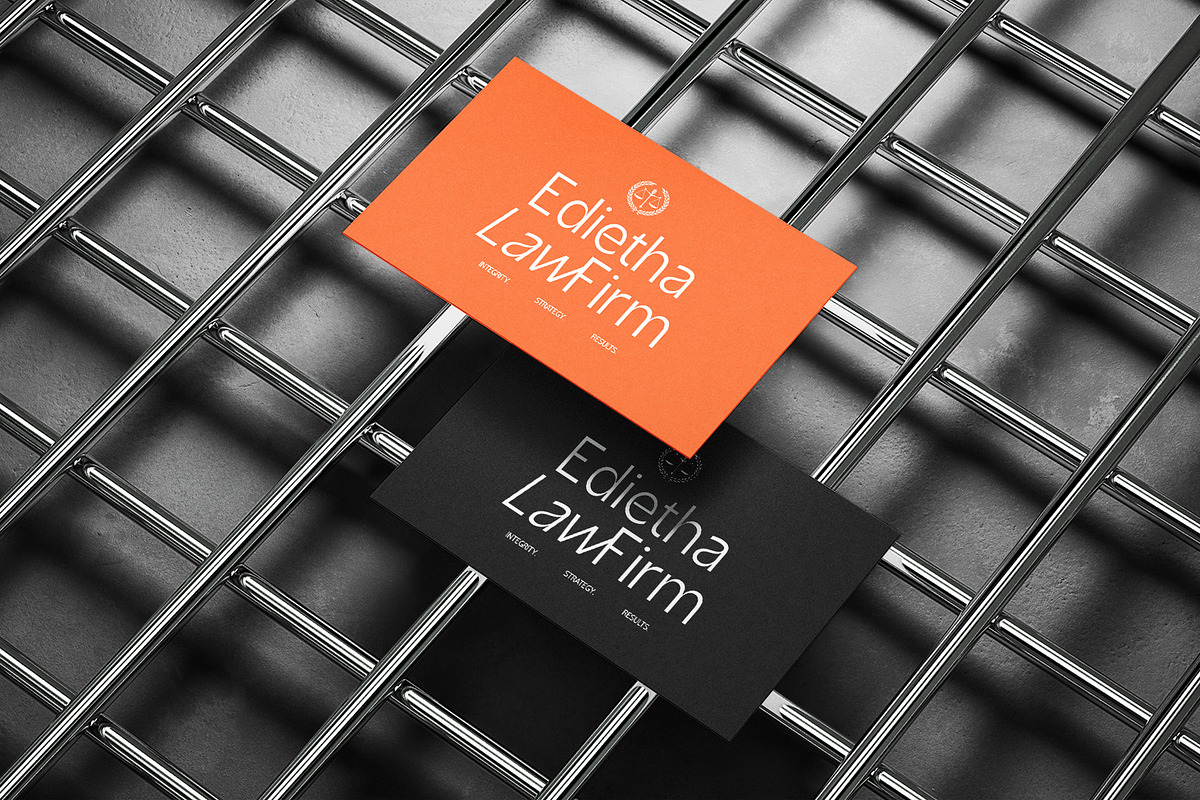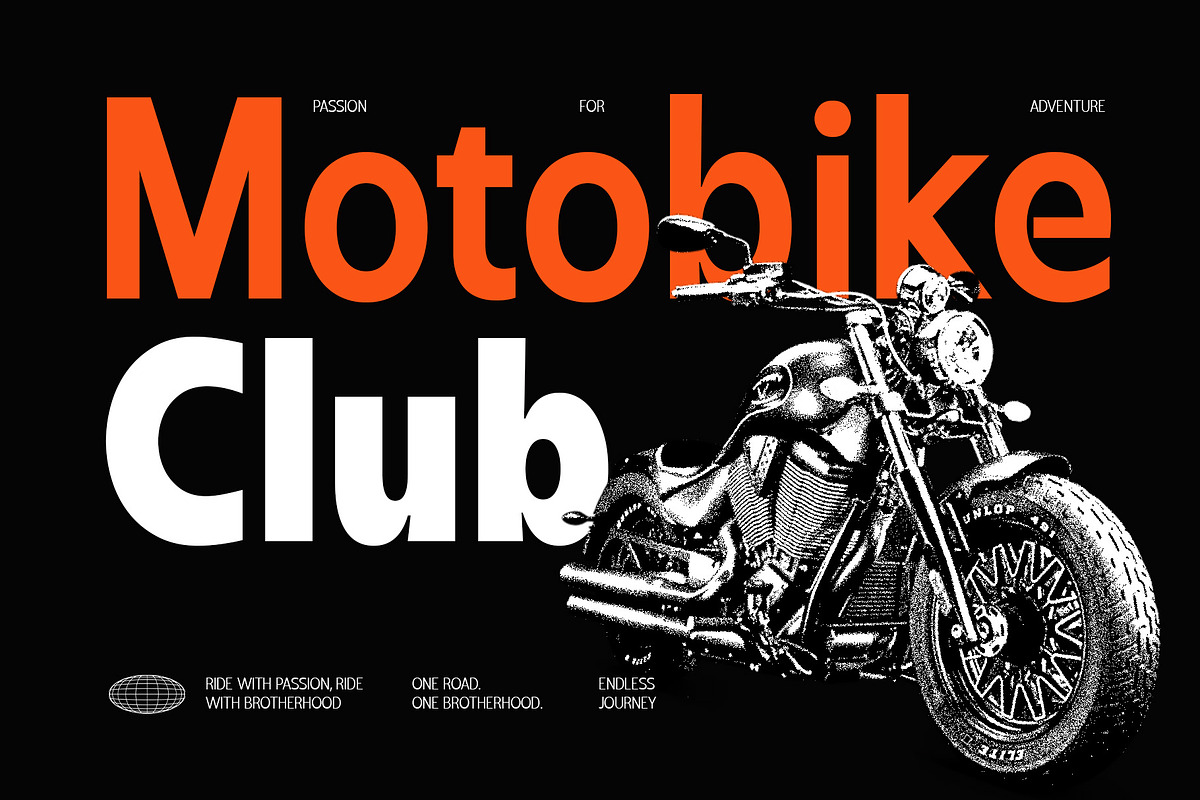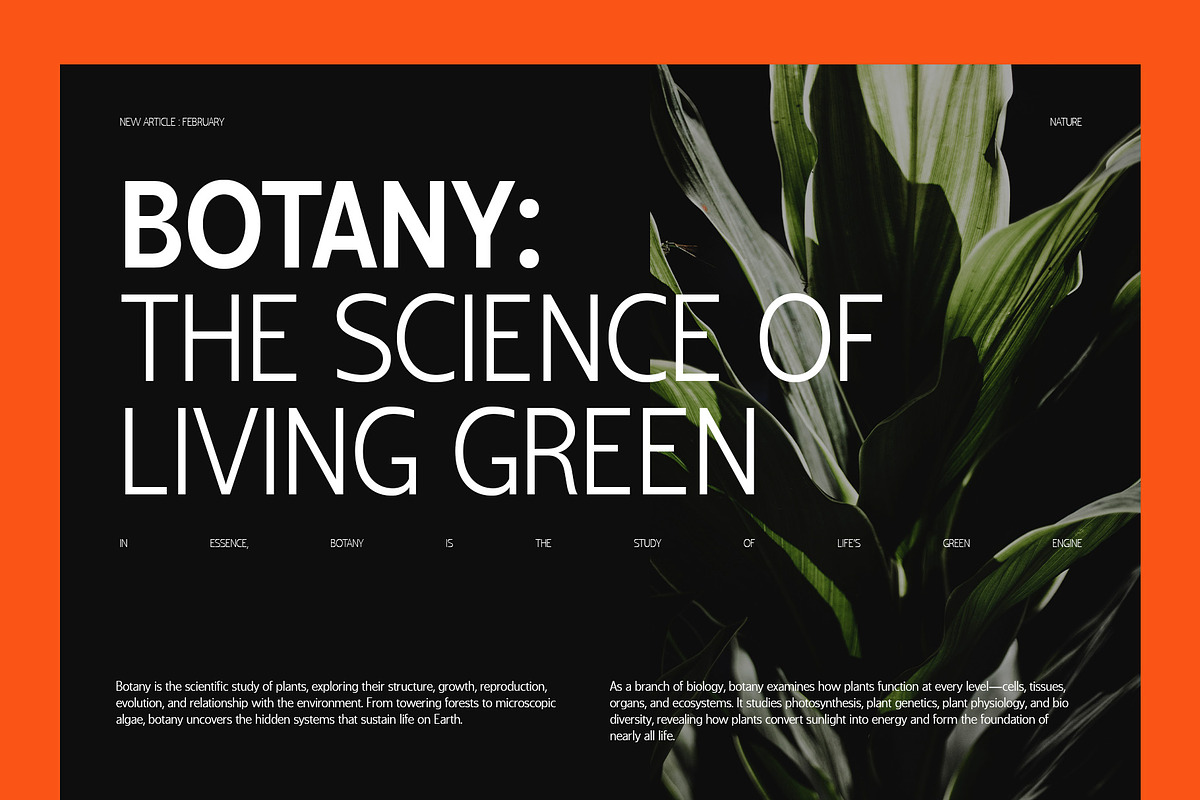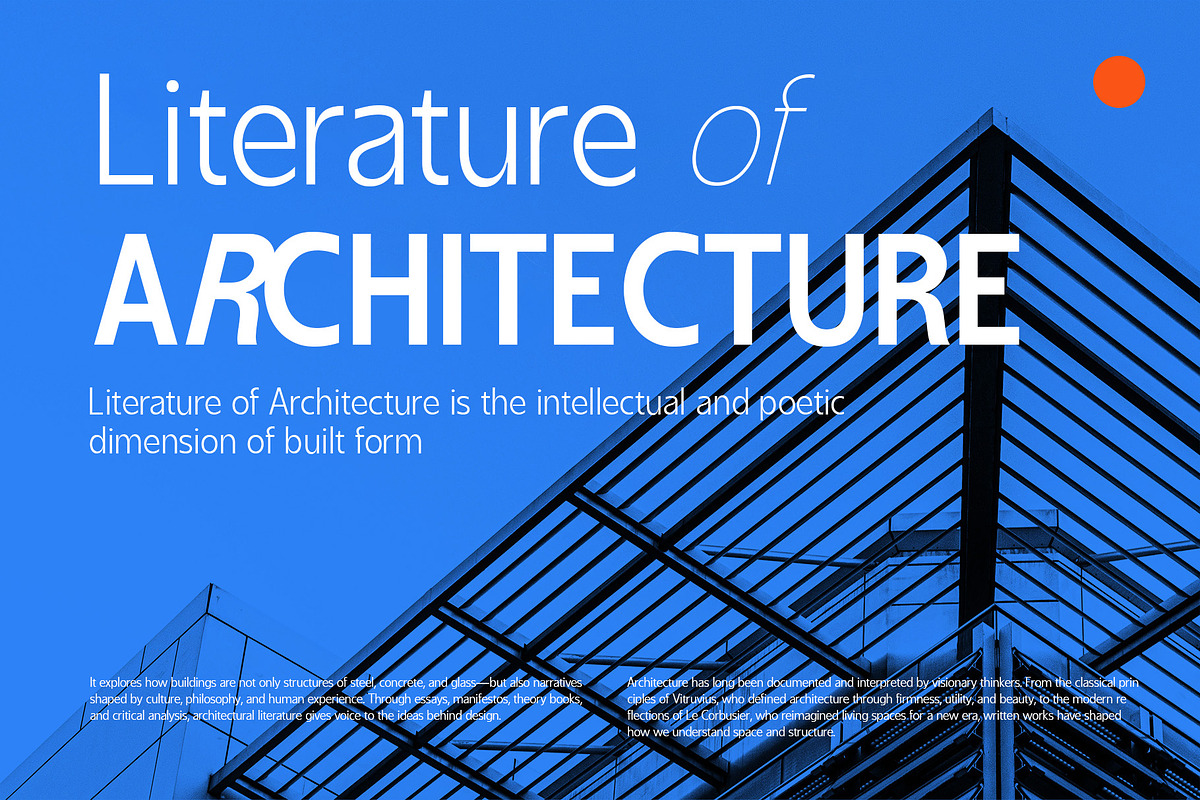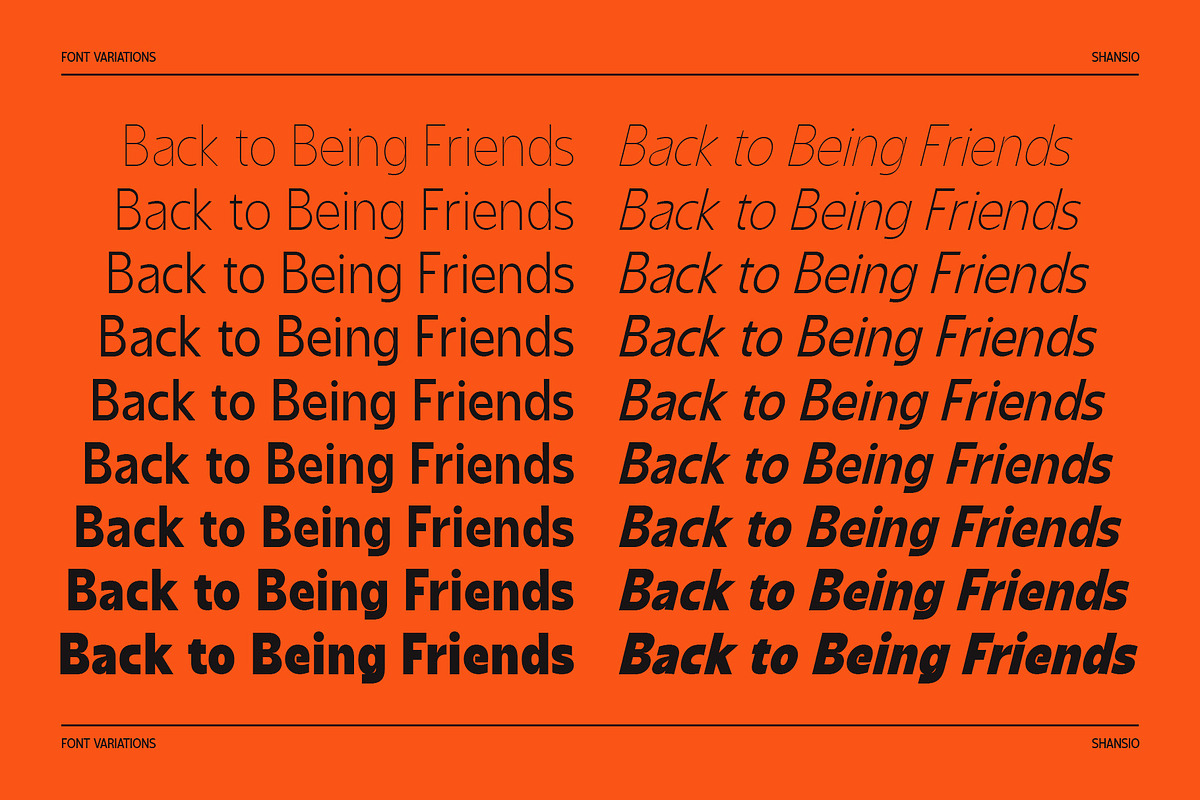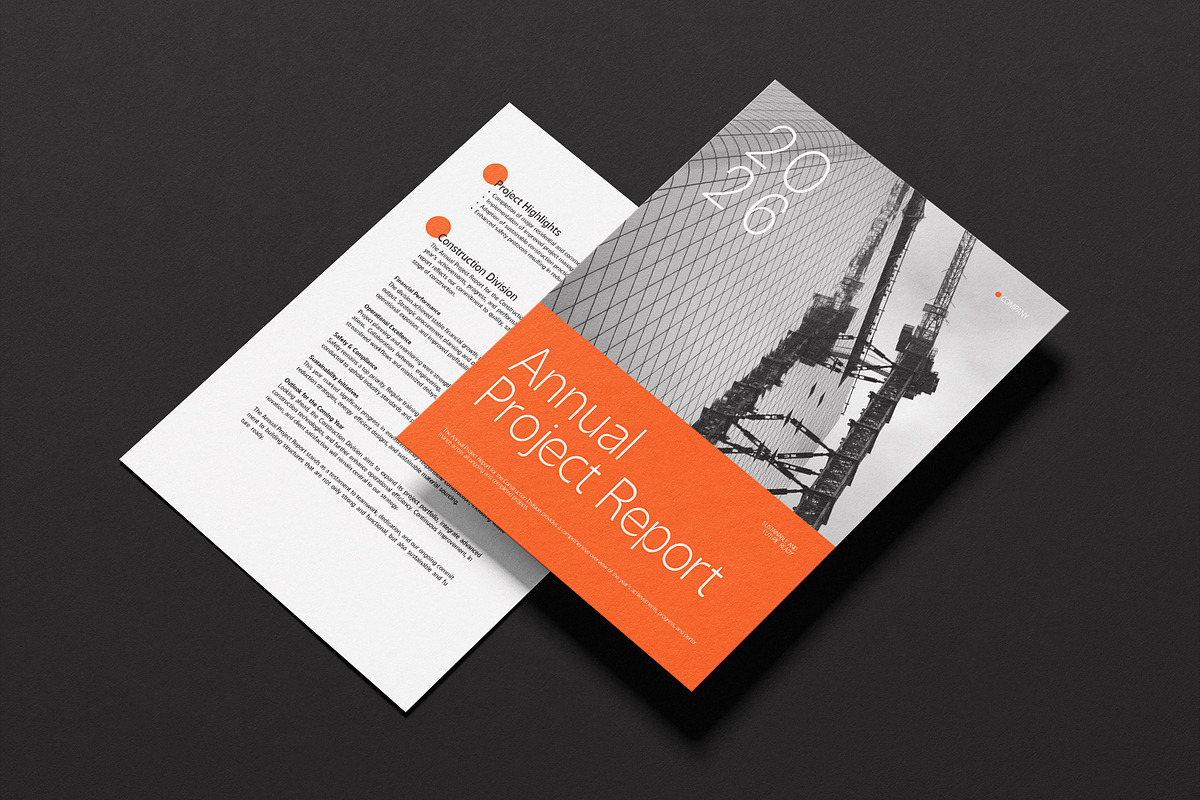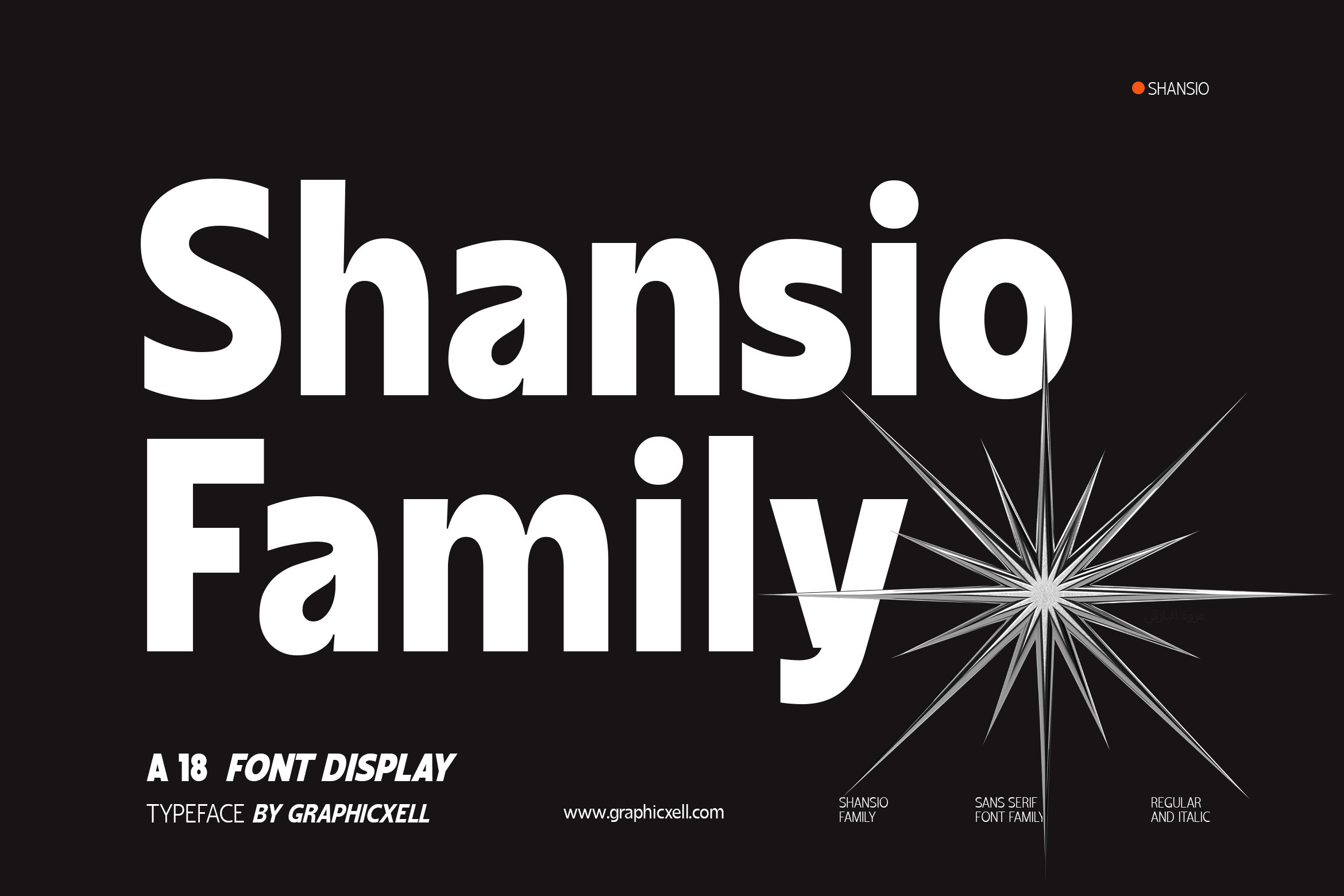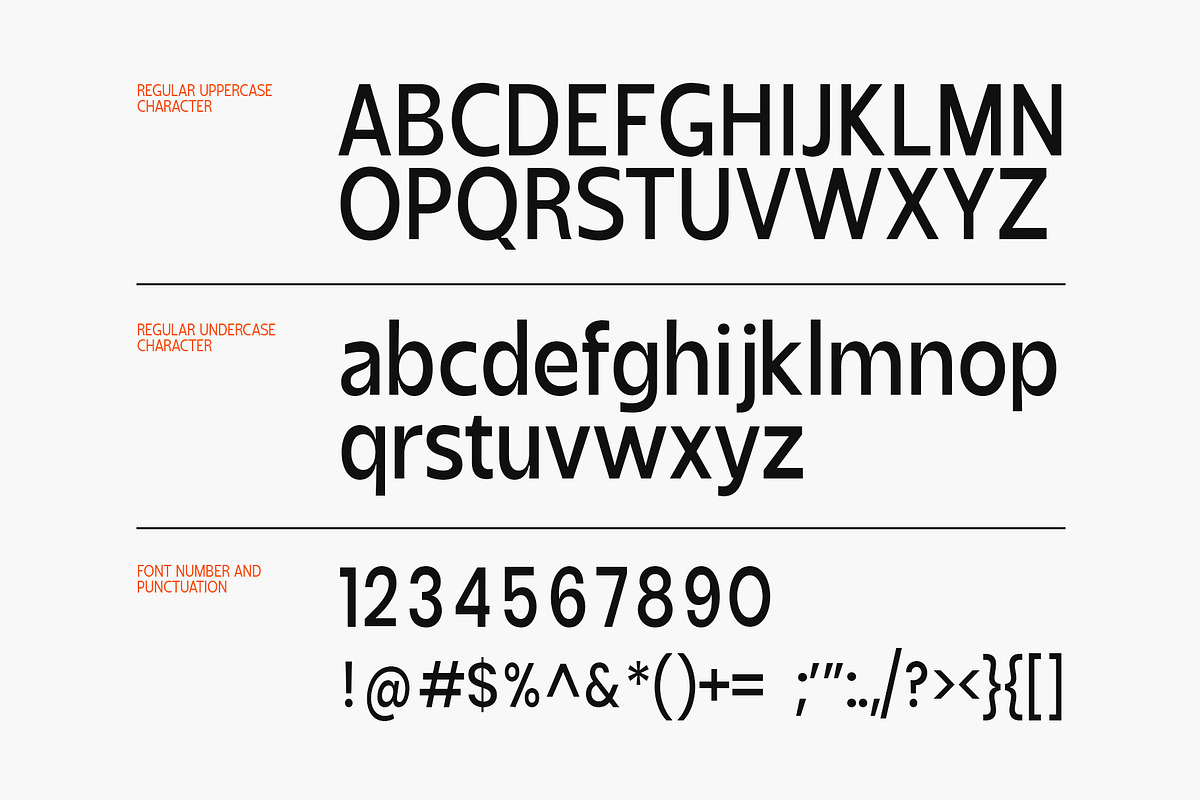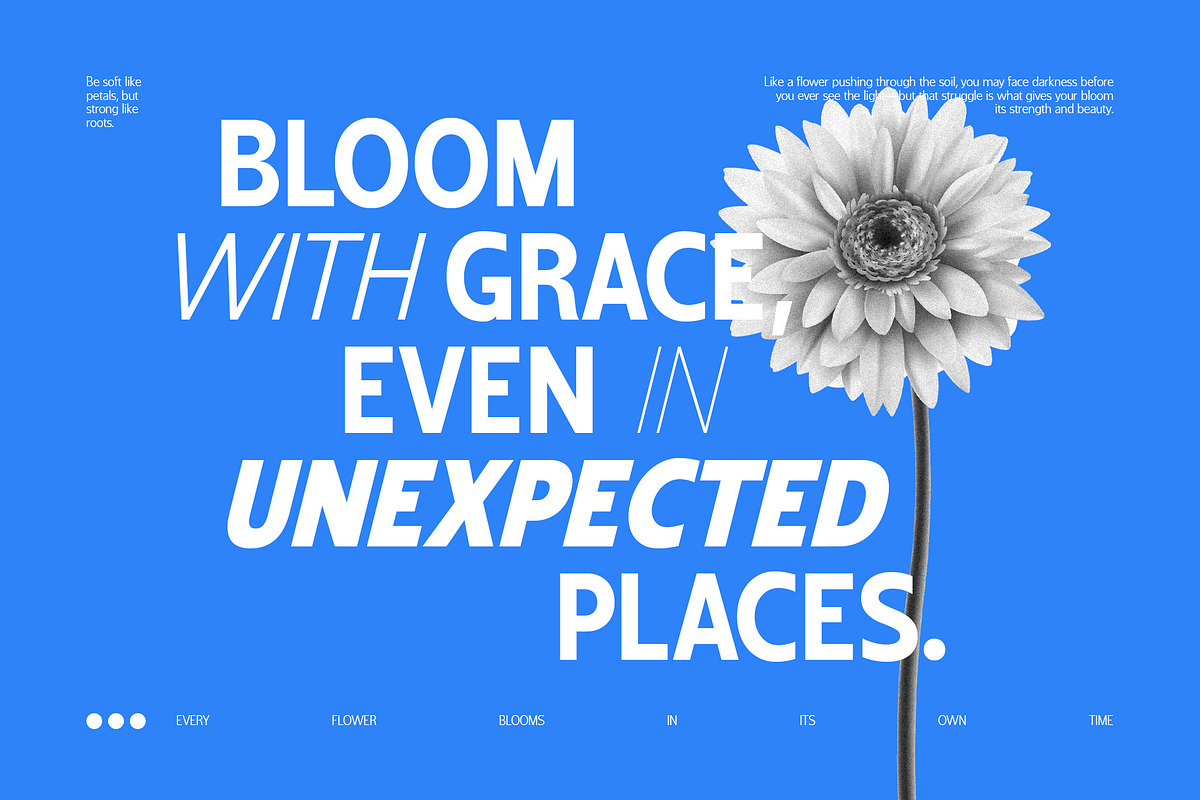
Shansio Sans Serif Font Family
Shansio is a modern variable sans serif font family built for clarity, flexibility, and strong visual impact. With 18 variable styles, it gives designers precise control over weight and emphasis, so layouts can adapt smoothly across different media. Because the letterforms are clean and balanced, the font communicates professionalism while remaining friendly and accessible.
The design follows a geometric-humanist approach. Straight stems, open counters, and soft curves create a neutral yet confident tone. As a result, headlines look bold without feeling heavy, while body text stays readable even at smaller sizes. In addition, the italic styles introduce motion and contrast, which helps guide the reader’s eye through complex layouts.
Shansio performs exceptionally well in branding and editorial work. It also suits corporate communication, digital interfaces, and advertising. The wide proportions allow text to breathe, while consistent spacing maintains rhythm across lines. Therefore, designers can build hierarchy easily without changing typefaces.
This font family was clearly designed for real-world versatility. It handles large display settings, such as posters and billboards, yet remains crisp on screens and mobile devices. Moreover, its neutral personality pairs effortlessly with serif fonts or decorative styles, expanding creative possibilities.
Key features include:
18 variable styles for flexible typography
Clean modern sans serif design
Strong presence in headlines and titles
Excellent readability for digital use
Regular and italic variations
Professional tone for corporate branding
Balanced spacing for long text blocks
Because visual consistency is crucial in modern design systems, Shansio helps maintain a unified look across print and digital platforms. It conveys innovation, reliability, and simplicity at once. Consequently, it is an ideal choice for designers who need a dependable type family that can scale from minimal layouts to bold campaigns.
Choose Shansio when you want a contemporary variable sans serif that combines precision with personality. It transforms ordinary typography into a clean, modern statement while keeping your message clear and easy to read.